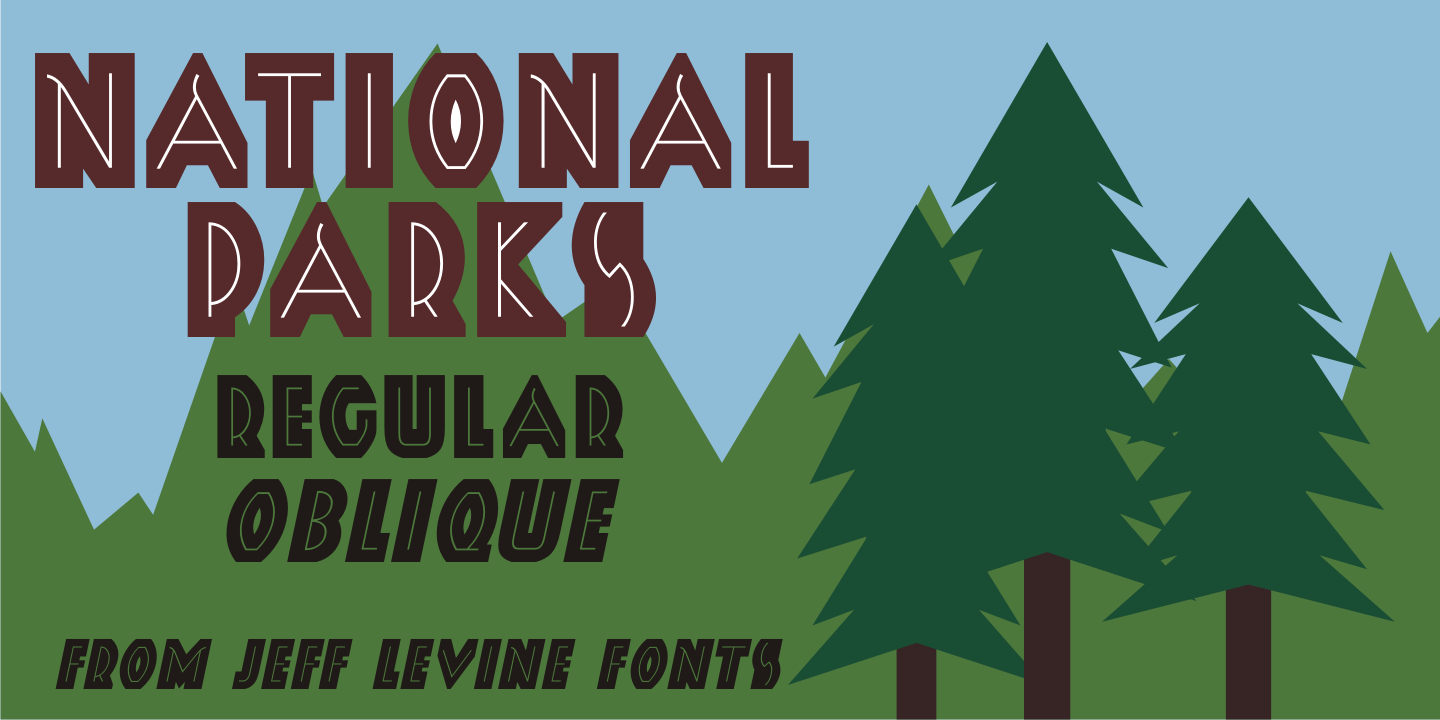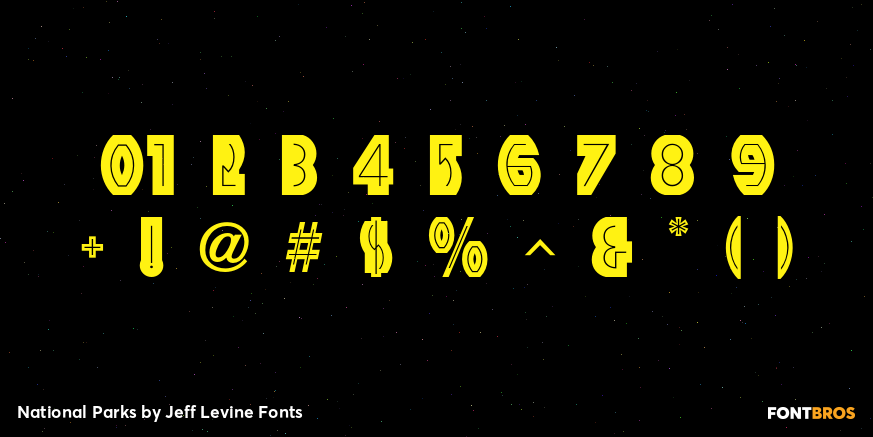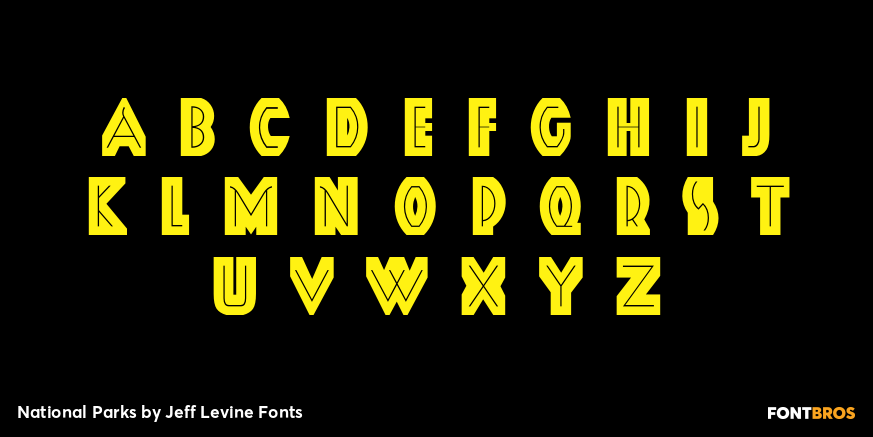
National Parks
National Parks JNL was based on a 1930s WPA (Works Progress Administration) poster where the word 'National Parks' was hand lettered in an unusual and eclectic Art Deco style.
Bold and non-conformist, the typeface is available in both regular and oblique versions.